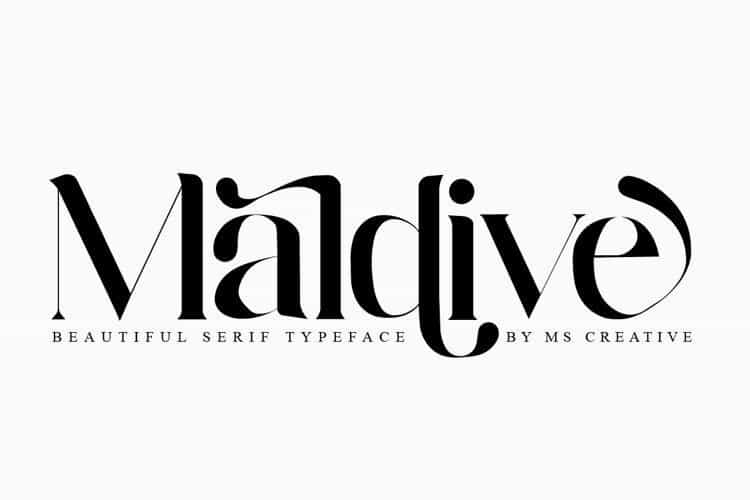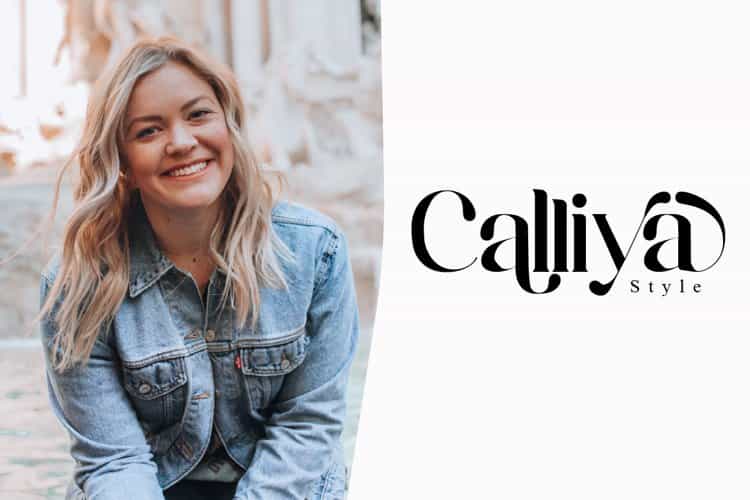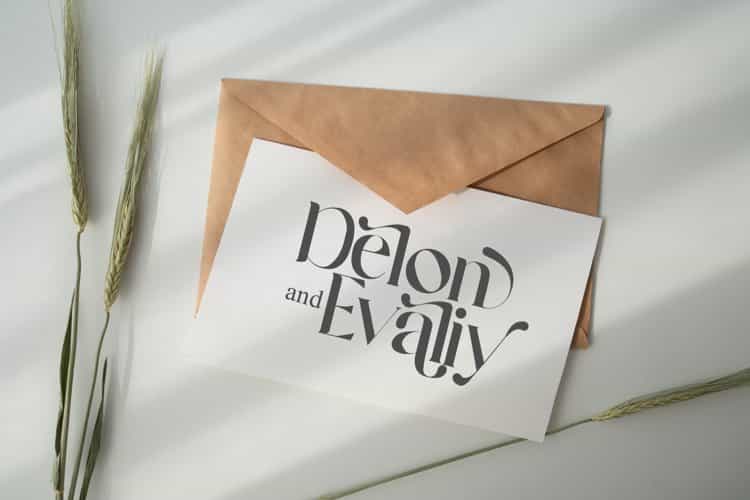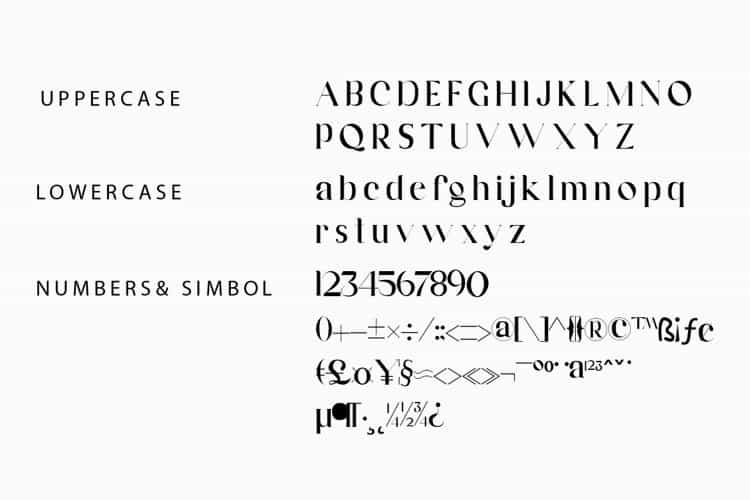
Maldive is a distinctive, simple serif font with a clean and minimalist design. It’s perfect for stunning title, logos and web layouts, as well as fashion magazines and branding. It looks stunning in all caps, with the wide spacing you need if would like to experiment with a stylish style, or stunning alone in capital and lowercase letters to express an entirely unique look .